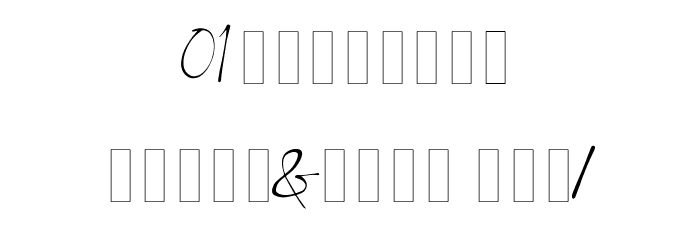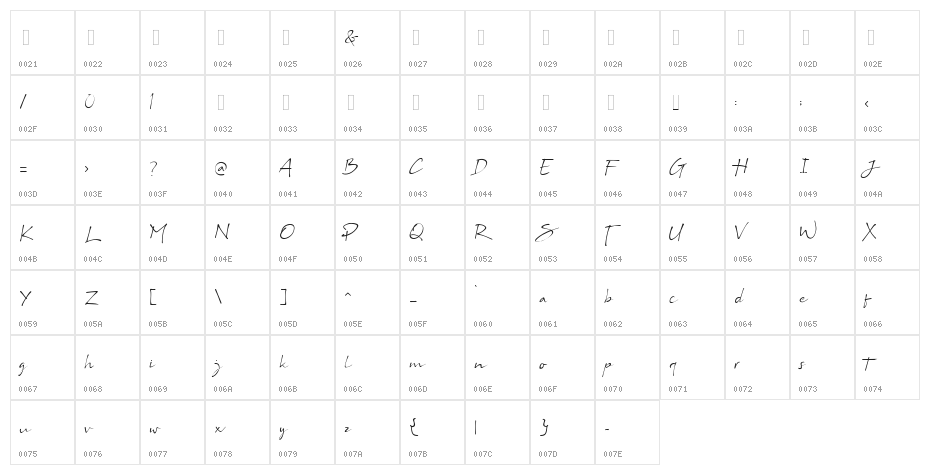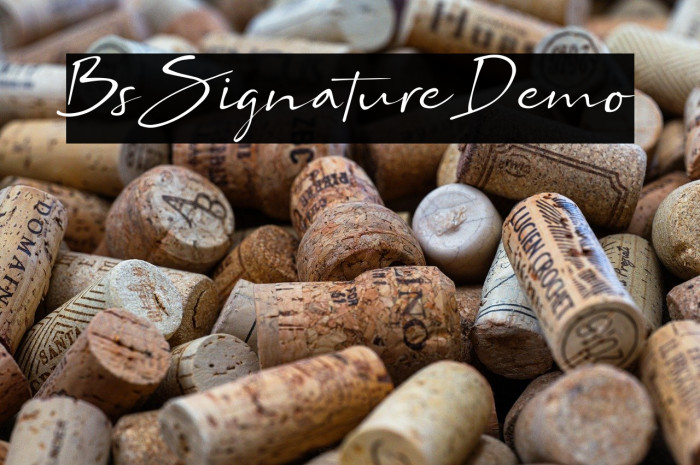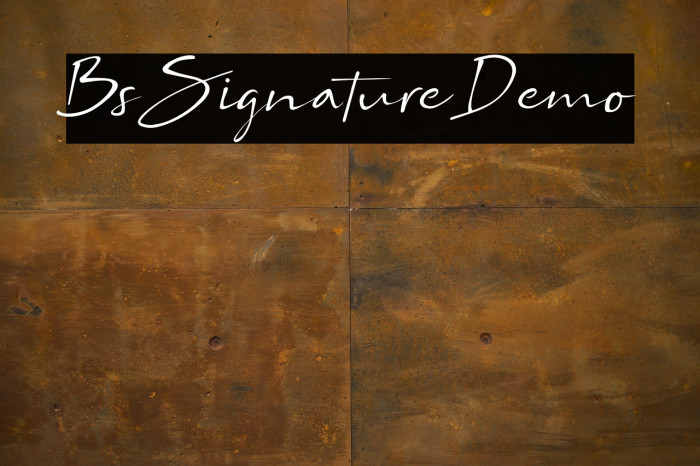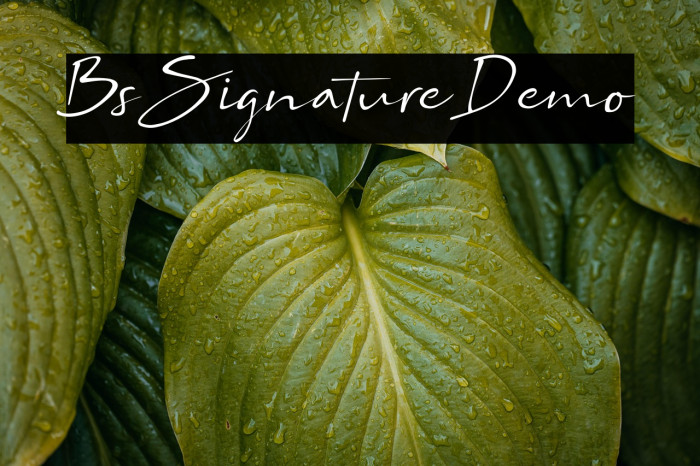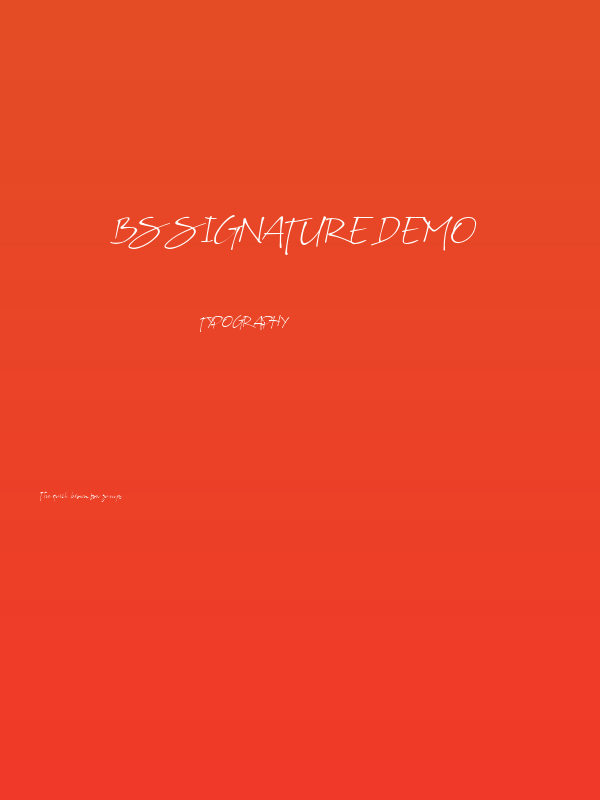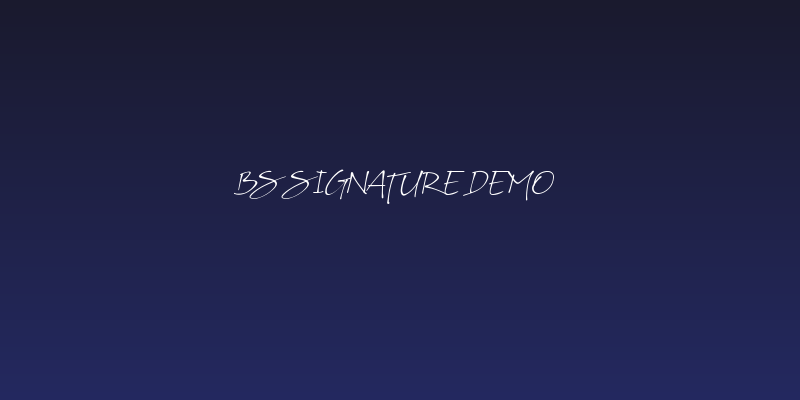
Bs Signature Demo Font
Bs Signature Demo Description
This font exudes elegance and sophistication with its flowing, cursive style. The uppercase letters are bold and slightly slanted, giving a sense of movement and grace. The lowercase letters are more delicate, with smooth, continuous strokes that mimic the fluidity of handwriting. The numbers and special characters maintain the same elegant style, ensuring consistency across all text. The overall appearance is refined and stylish, making it suitable for projects that require a personal touch or a sense of luxury.
| Proposed Projects | Ideal for wedding invitations, personal branding, luxury product packaging, and elegant stationery. |